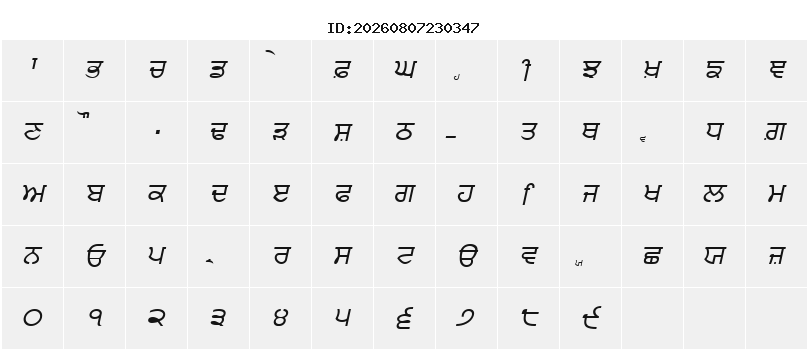
Punjabi Preview
About Punjabi.ttf
Punjabi.ttf is a modern, elegant sans-serif font designed for ultimate readability and visual harmony. Perfect for branding, headlines, web design, and print materials.